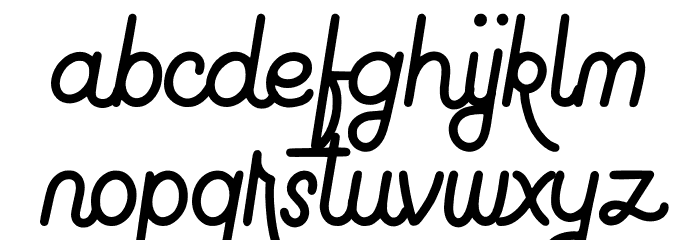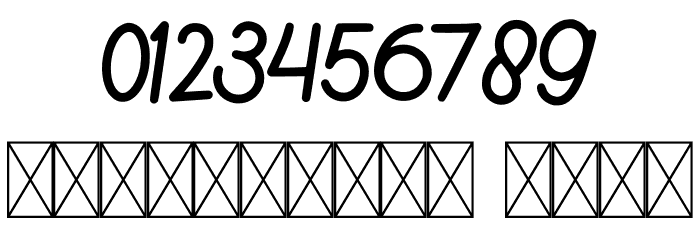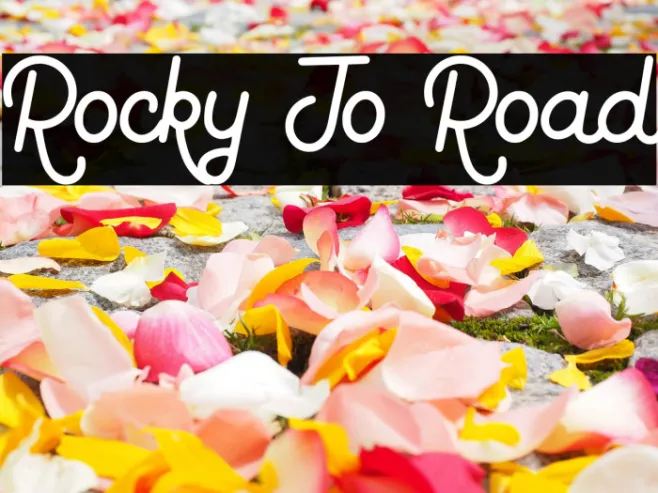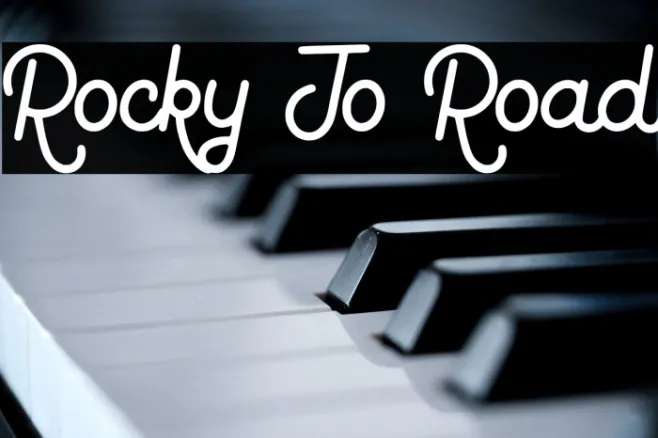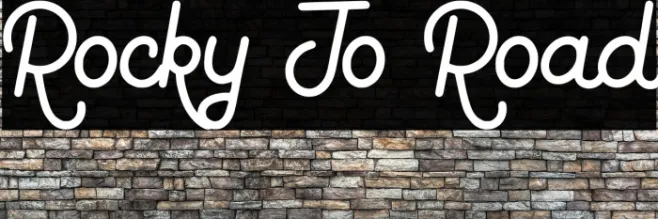
Rocky To Road Font
This font features a playful and dynamic script style with a handwritten appearance. The letters are connected, giving it a fluid and continuous flow. The uppercase characters are slightly more formal, with a consistent height and smooth curves, while the lowercase letters exhibit a more casual and relaxed feel. The numbers maintain the same playful style, ensuring consistency across all characters. The special characters are designed to match the overall aesthetic, making them suitable for various creative applications. The font's overall appearance is both friendly and approachable, making it ideal for projects that require a personal touch.
A playful, handwritten script font with fluid, connected letters.
- Proposed Projects: Ideal for greeting cards, invitations, personal branding, and creative projects that require a friendly and approachable feel.
- Overall Style: Casual, Playful
- Use Case: Logos, Invitations, Greeting cards